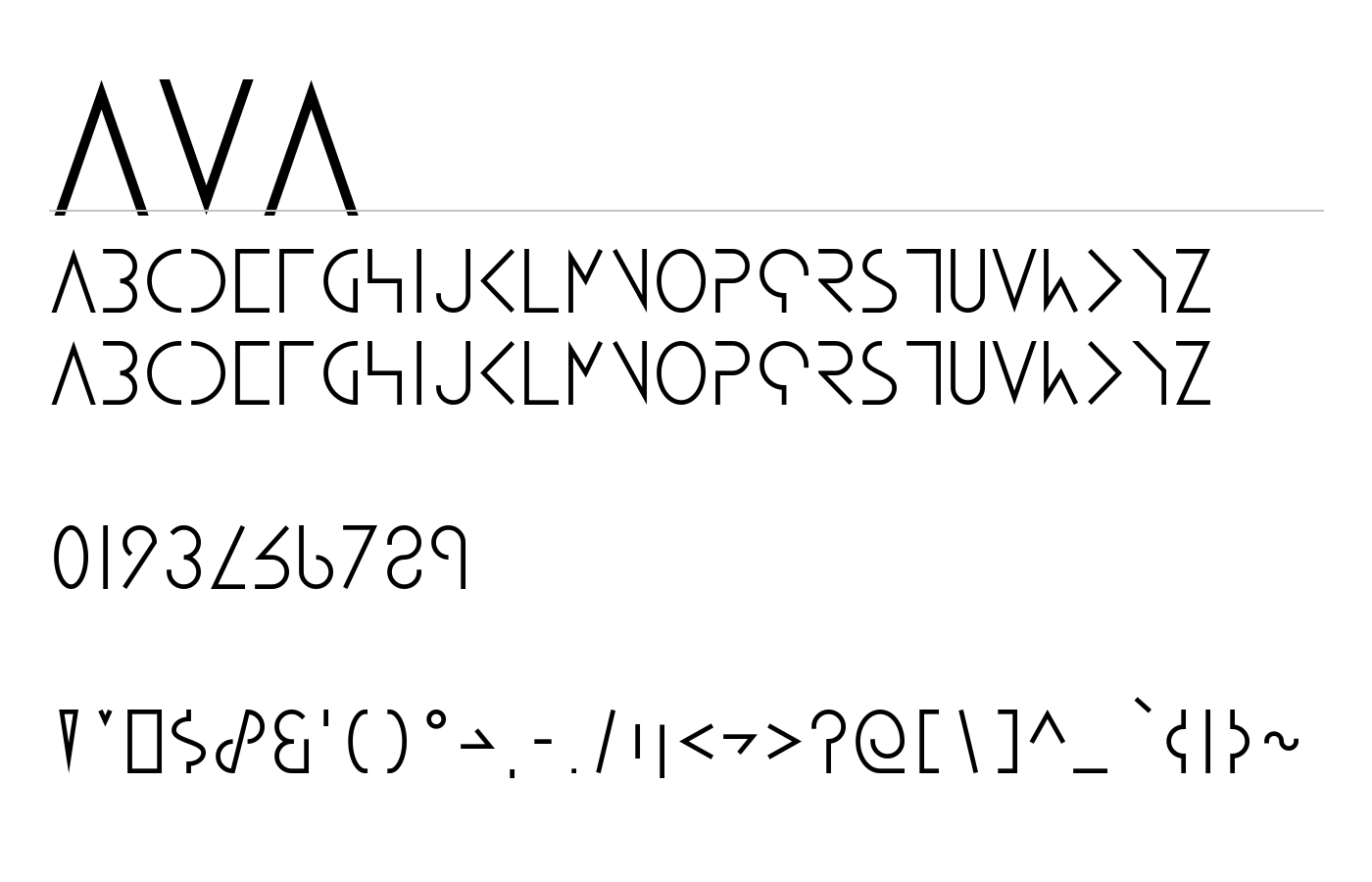
AVA Font is a modern sans serif with a futuristic and geometric design, characterized by thin, sharp strokes and distinctive angular letterforms that create a sleek, minimalist appearance. Its narrow width and high x-height give it a condensed and technical feel, making it ideal for avant-garde branding, technology-related projects, and stylish headlines where a contemporary edge is desired. This font works well in creative logos and editorial layouts that seek a cutting-edge, sophisticated look with a hint of innovation.
AVA Font
About AVA Font